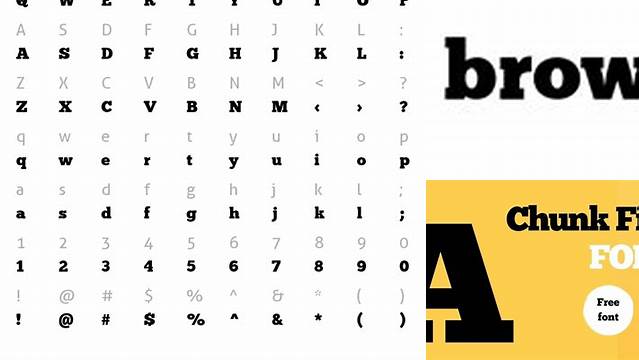
ChunkFive Ex Regular Font: Free Download & Design Guide
ChunkFive Ex Regular Font: Your Ultimate Guide to Free Download and Usage
ChunkFive Ex Regular Font: Exploring Its Design and Characteristics
Let's take a closer look at the ChunkFive Ex Regular font. This font is a bold, eye-catching, and modern display typeface. Its design is characterized by its thick strokes and strong presence, making it perfect for headings, titles, and short bursts of text where you want to grab attention. The 'Regular' in its name refers to the standard weight, which is neither too light nor too heavy. The font often features a distinct, slightly rounded style, which gives it a friendly and approachable feel. It’s a great choice for projects where you want to convey strength and confidence without being overly aggressive. The font has a clean and legible design. It ensures readability even at larger sizes, making it suitable for posters, websites, and any other medium where text needs to stand out. The kerning and spacing are generally well-balanced. This contributes to the overall visual harmony of the text. The letterforms are crafted with a focus on clarity and impact, providing an excellent balance between functionality and style. This font can be used for various designs, making it a valuable asset in a designer's toolkit. Consider using this font for brands that want to project a strong visual identity.
ChunkFive Ex Regular Font: Legibility and Readability Analysis
ChunkFive Ex Regular font excels in legibility and readability. The font's bold design ensures that characters are easily distinguishable, even at a distance or in low-resolution displays. The heavy strokes create a strong visual presence, making it perfect for headlines and titles. Despite its bold nature, the design is structured in a way that maintains clear shapes and forms. This prevents letters from running together or becoming difficult to read. The spacing between letters and words is generally well-balanced, contributing to readability. The font's clean and modern design avoids unnecessary flourishes. It keeps the focus on the words themselves. This makes it ideal for both print and digital media. The font's uniform stroke weight ensures consistency throughout the text. This enhances its visual appeal and readability. The font also works well in different sizes. It maintains its legibility whether used in a small logo or a large poster. When used in body text, it is better suited for short paragraphs or key phrases, as its bold style might become overwhelming for long blocks of text. Overall, the ChunkFive Ex Regular font is a reliable choice. Its readability guarantees that your message will be delivered clearly and effectively.
ChunkFive Ex Regular Font: Typography and Design Considerations
When integrating the ChunkFive Ex Regular font into your designs, several typography and design considerations can enhance your projects. First, think about the font’s role in your design. Because of its boldness, this font is ideal for headlines, titles, and short, impactful text. Avoid using it for body text, as it can be tiring to read in large blocks. Second, consider the font’s visual weight. The ChunkFive Ex Regular font is heavy. Balance it with lighter font weights or styles in other elements of your design. The color palette is crucial. Darker colors on a lighter background are great for legibility. Make sure there's enough contrast to ensure the text is easily readable. Experiment with different sizes. This font looks great in large sizes, but make sure it’s also readable at the sizes you need. Letter spacing (kerning) is another key factor. Adjust the letter spacing, especially at larger sizes, to create a balanced visual appearance. Proper kerning can improve readability. Pairing this font with other fonts is another key element. Try pairing it with a clean sans-serif or serif font for body text. This creates a visual hierarchy. Remember to use negative space effectively. Give your text enough breathing room. This prevents the design from feeling cluttered. Pay attention to line spacing. Adjust the line spacing to enhance readability. By considering these design factors, you can ensure that the ChunkFive Ex Regular font complements your overall design and enhances its impact.
ChunkFive Ex Regular Font: Best Uses in Design Projects
The ChunkFive Ex Regular font is a versatile typeface. It can be used in several design projects. Here are some of the best uses: Branding and Logos: This font is ideal for creating strong, memorable brand identities. Its boldness and unique style make it perfect for logos. Website Headers and Titles: Make your website stand out with eye-catching headers and titles that grab attention. Posters and Flyers: This font is great for promotional materials. Create posters and flyers that make a bold statement. Social Media Graphics: Use it to create engaging social media graphics. Highlight key messages and grab your audience’s attention. Merchandise Design: It’s great for t-shirts, mugs, and other merchandise designs. It will give your products a modern and appealing look. Infographics: Use the font to emphasize important information and create engaging infographics. Packaging Design: This font can be used on packaging to create a bold and professional appearance. Book Covers: Create striking book covers that immediately catch the eye of potential readers. Remember, the key is to use the font in places where you want to make a strong visual statement. Its unique characteristics make it a great choice for projects where you want to capture attention.
ChunkFive Ex Regular Font: Branding and Logo Design Applications
ChunkFive Ex Regular font can be a powerful tool for branding and logo design. The font's boldness and distinctive style can make a brand instantly recognizable. Its strength and contemporary look make it perfect for logos that convey confidence and modernity. It projects a strong visual identity, which is essential for a brand. When creating a logo, the font can be combined with various design elements. This creates a unique and memorable visual statement. The versatility of the ChunkFive Ex Regular font allows it to be adapted to different brand personalities. Whether you want to create a logo for a tech company, a creative agency, or a retail brand, this font can be adapted to meet your needs. The font works well in different sizes and applications, including business cards, websites, and social media profiles. It will maintain its visual impact across all platforms. For branding, use this font for headlines, taglines, and key messaging. This consistency reinforces the brand's identity. The font's clean and modern style provides a professional look. This makes it a great choice for companies looking to establish a strong brand presence. Remember, your logo is the face of your brand. The ChunkFive Ex Regular font can help create a memorable and effective visual identity.
Conclusion: Unleash Your Creativity with ChunkFive Ex Regular